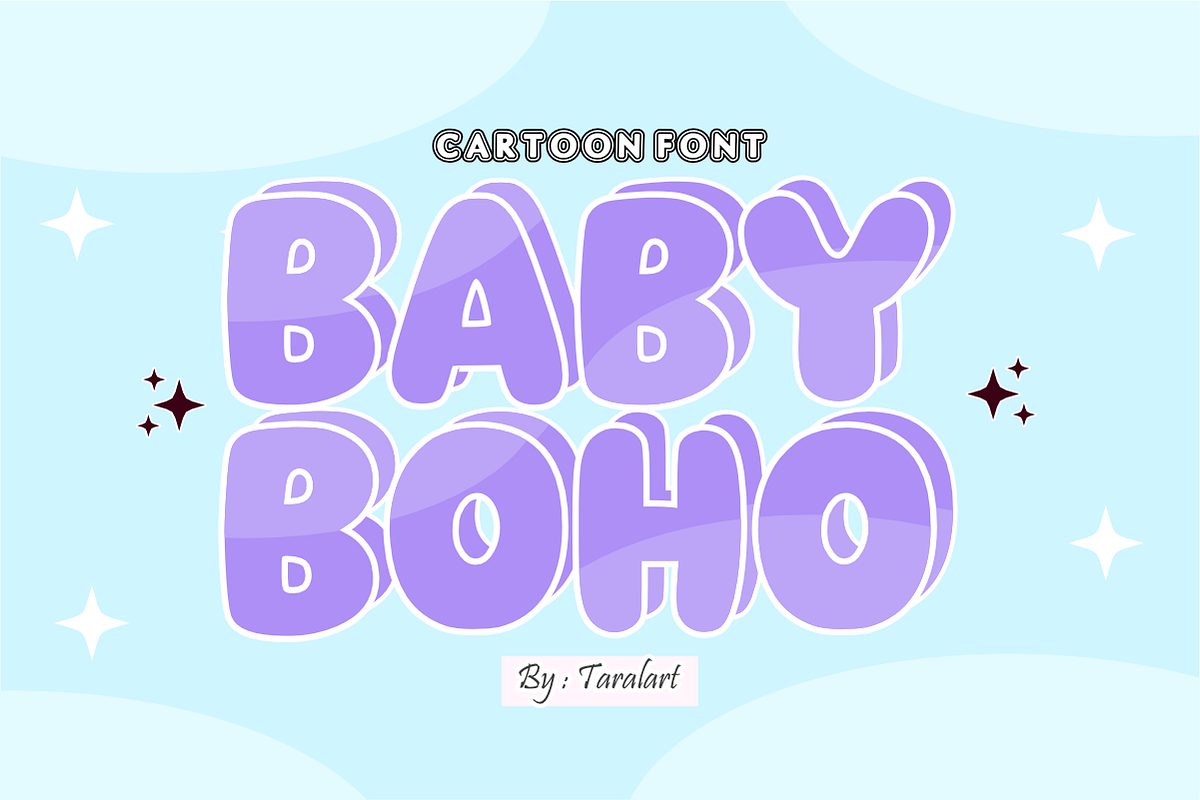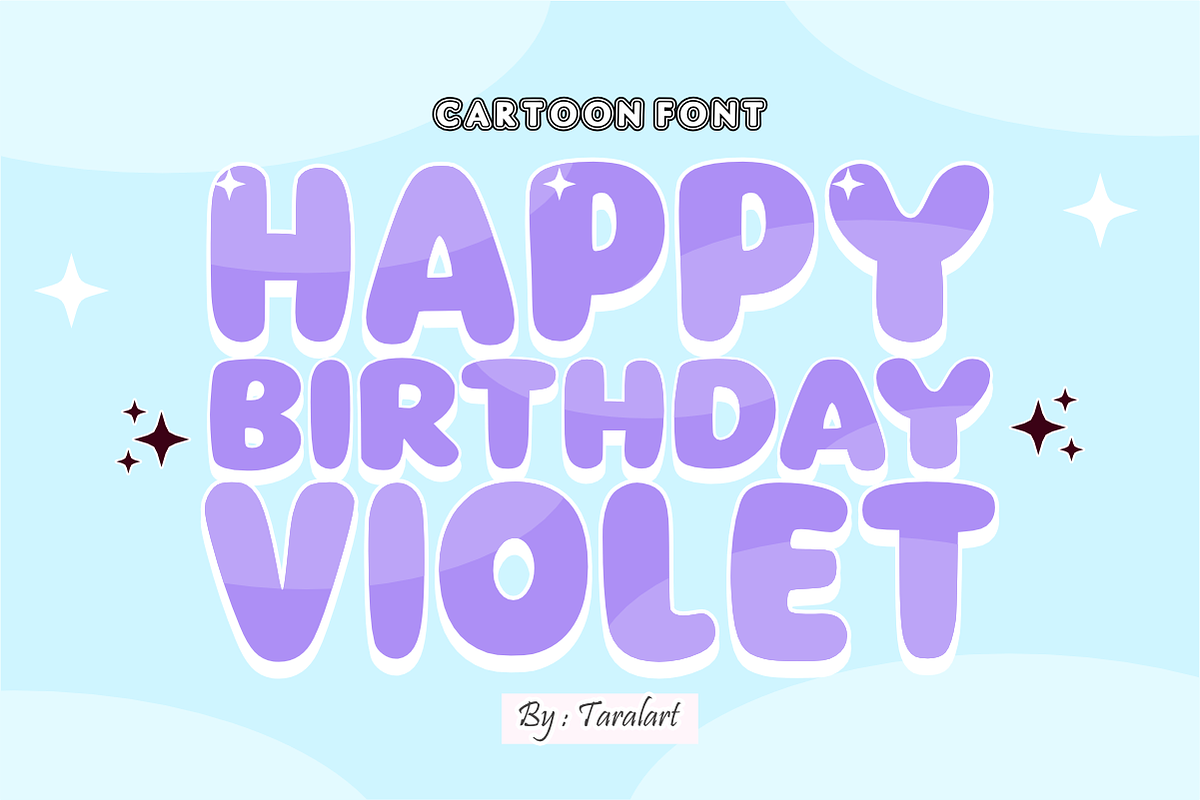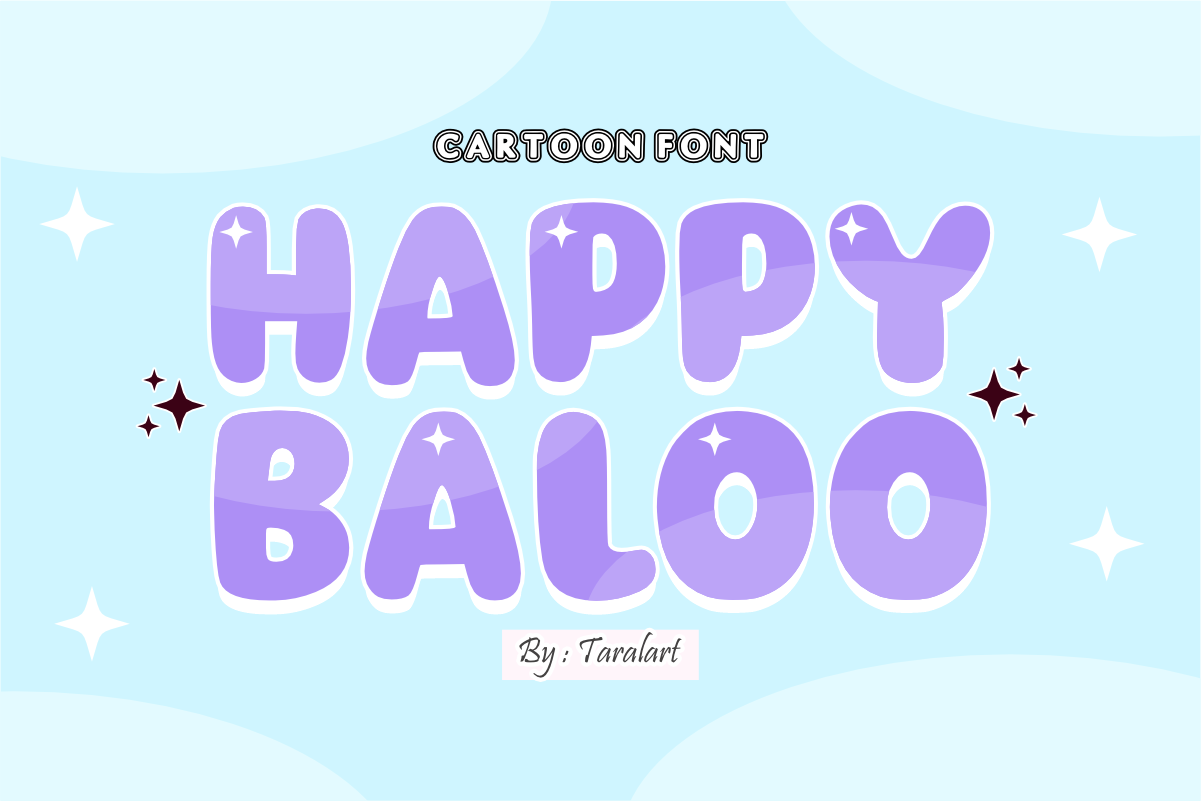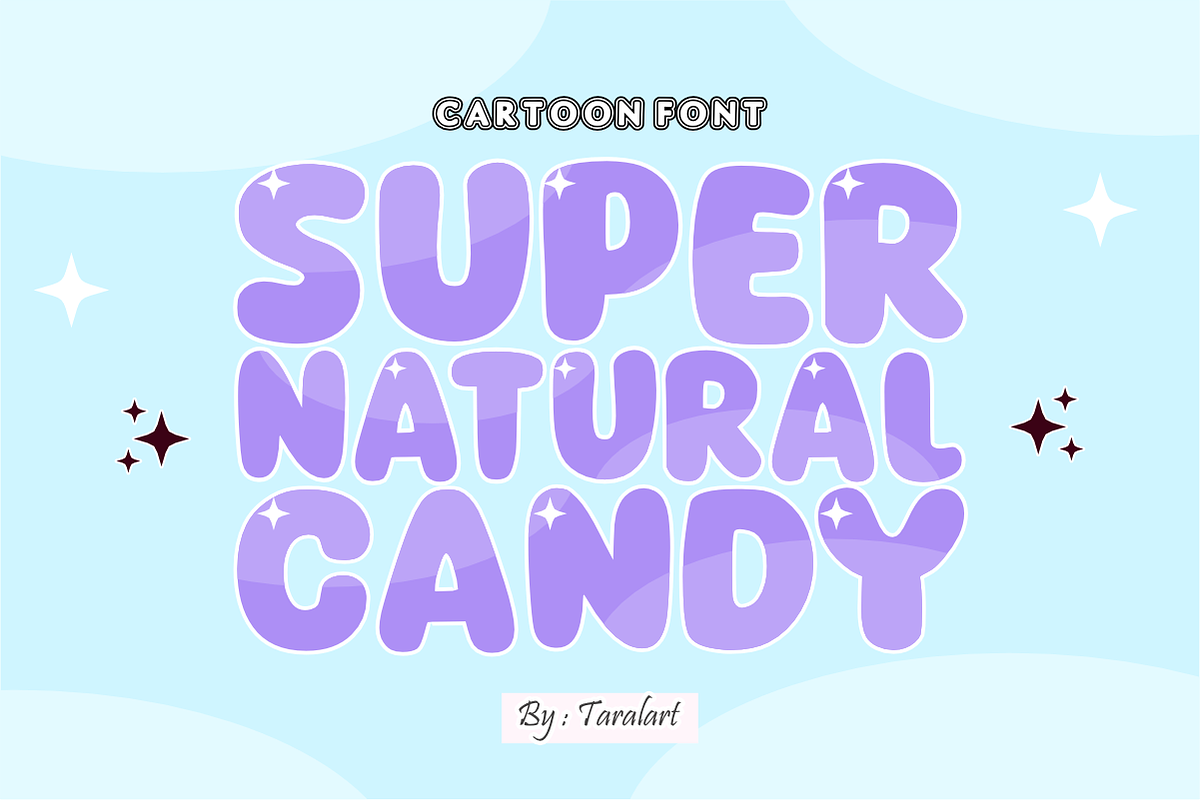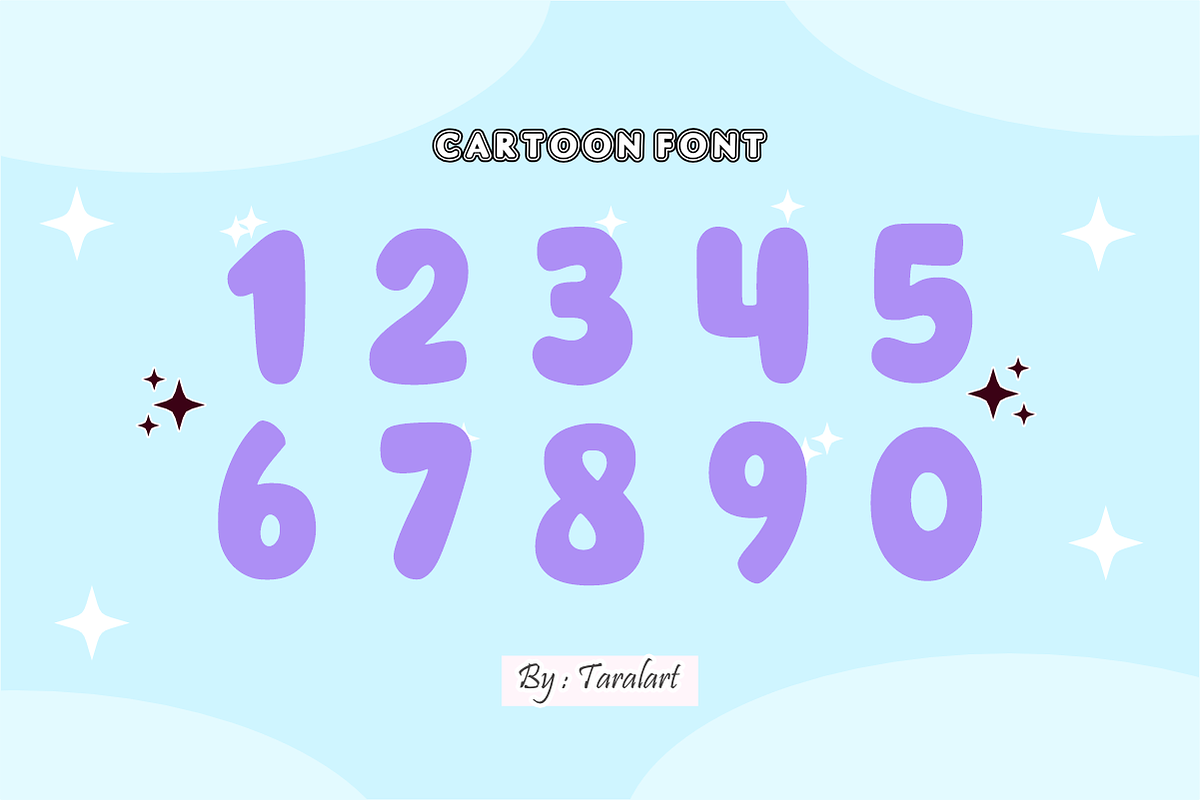
Happy Baloo - Playful Cartoon Font
Happy Baloo is a cheerful, bubbly display font featuring soft, rounded letterforms and smooth, built-in glossy highlights. Designed to bring instant joy, this playful cartoon font is perfect for children's branding, school projects, and custom crafts. Fully vectorized layers ensure clean, effortless cutting for Cricut, Silhouette, and laser crafters.
Uppercase Character Set
Numbers & Basic Punctuation
Ideal For:
Children's book covers and illustrations
Playful cartoon logos and mascot branding
Kids' apparel, merch, and t-shirt prints
Custom die-cut stickers and planner decals
Cricut and Silhouette vinyl crafting projects
Kindergarten worksheets and classroom decor
Birthday party invitations and banners